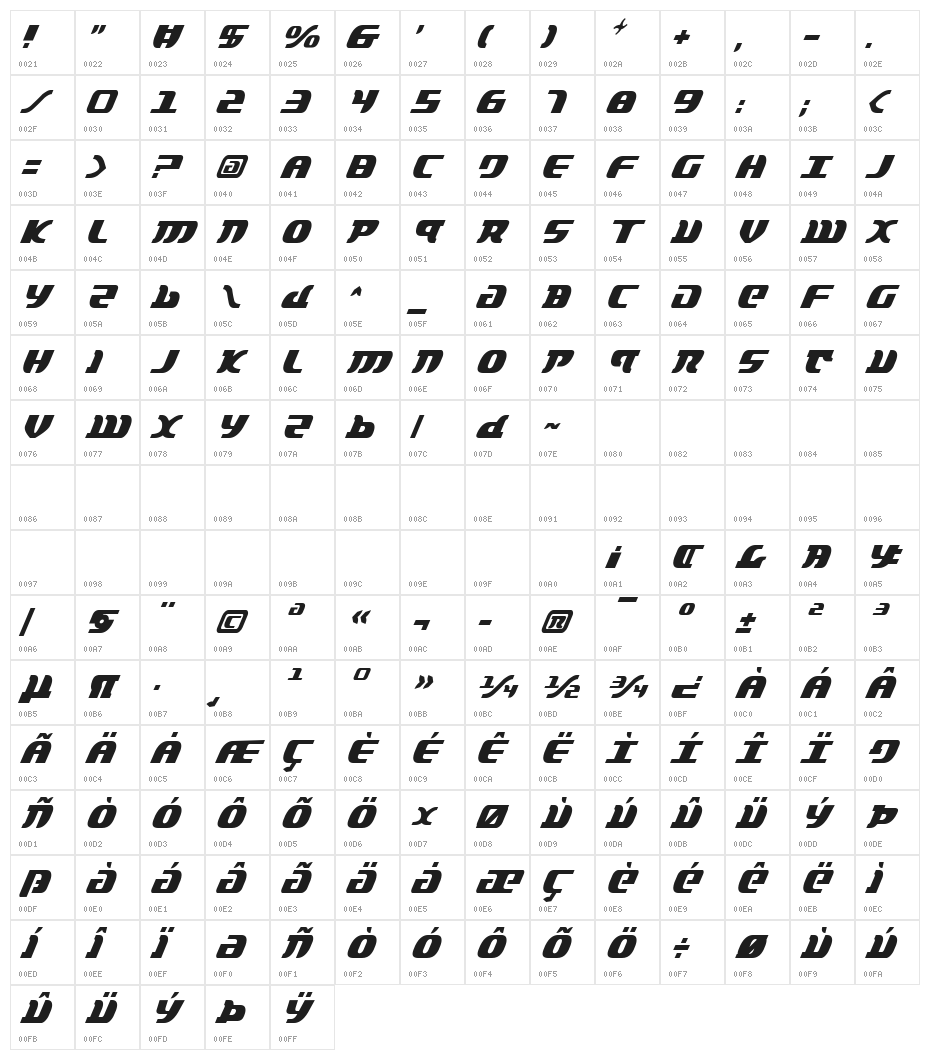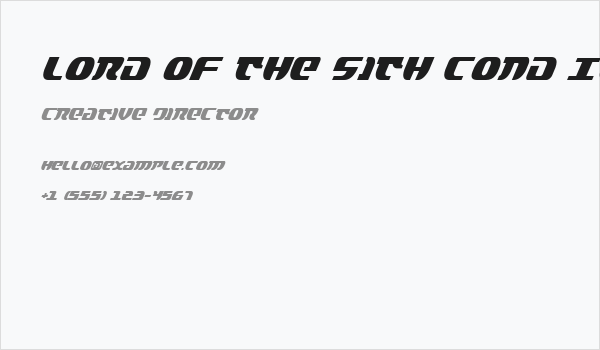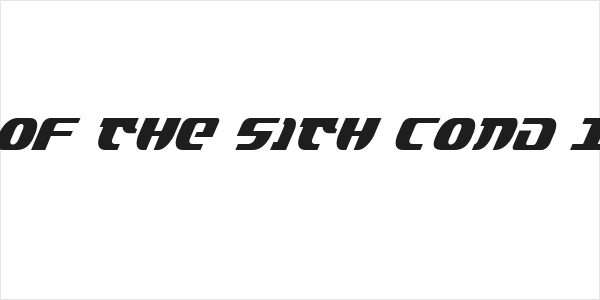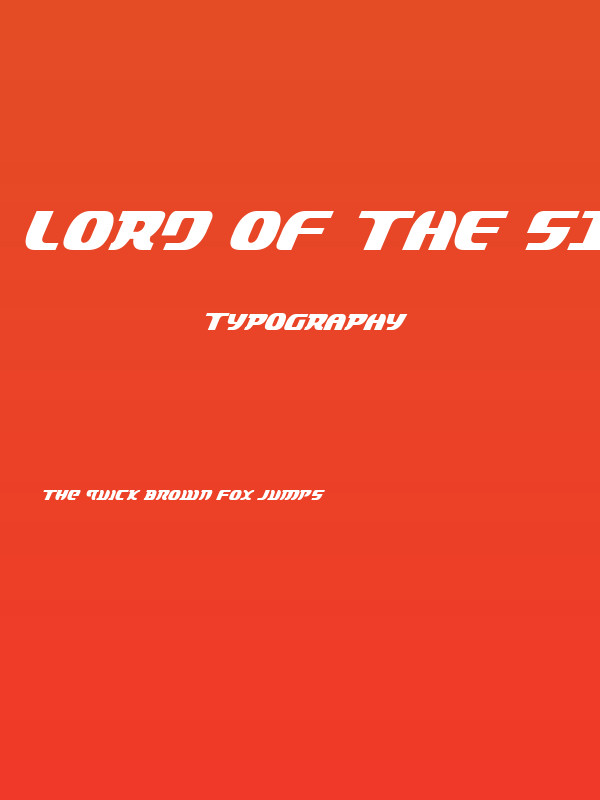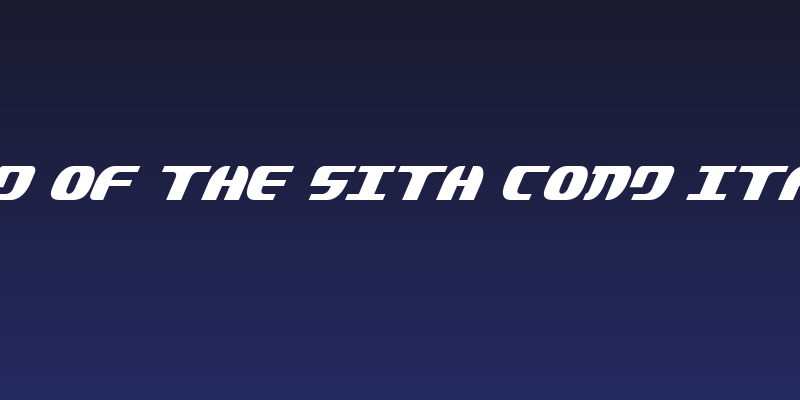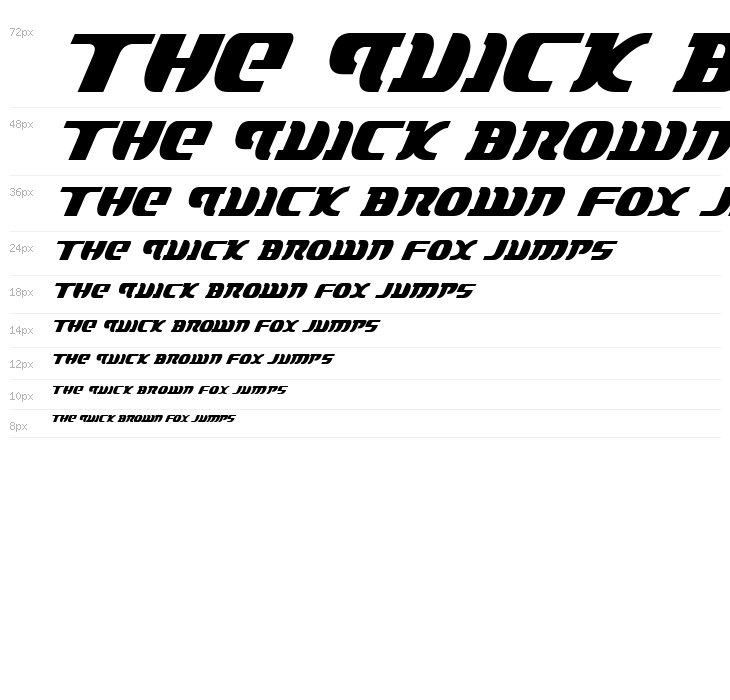
Lord of the Sith Cond Italic Font
Lord of the Sith Cond Italic Description
This font features a bold, italicized style with a futuristic and dynamic appearance. The characters are condensed, giving a compact look that enhances its modern aesthetic. The strokes are thick and uniform, providing a strong visual impact. The slanted design adds a sense of motion and speed, making it ideal for projects that require a sense of urgency or modernity. The font includes a full set of uppercase and lowercase letters, numbers, and a variety of special characters, all maintaining the same bold and italicized style.
| Proposed Projects | Ideal for sci-fi themed designs, video game titles, movie posters, and branding that requires a modern and dynamic feel. |